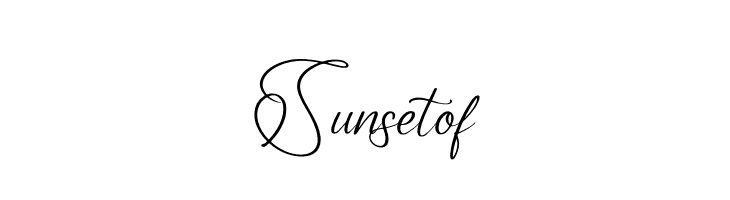
A casual, handwritten font with smooth, fluid strokes and a relaxed vibe.
A tall, narrow, and modern font with a sleek, minimalistic design.
A whimsical and decorative font with playful curls and swirls.
A playful, handwritten font with a casual and dynamic style.
An elegant script font with flowing, interconnected letters and decorative flourishes.
A modern, geometric font with clean lines and a minimalist aesthetic.
A bold, cursive handwritten font with dynamic and expressive strokes.
A bold, playful font with rounded, bubbly characters perfect for fun and whimsical designs.
A bold, geometric font with a hollow interior and modern design.